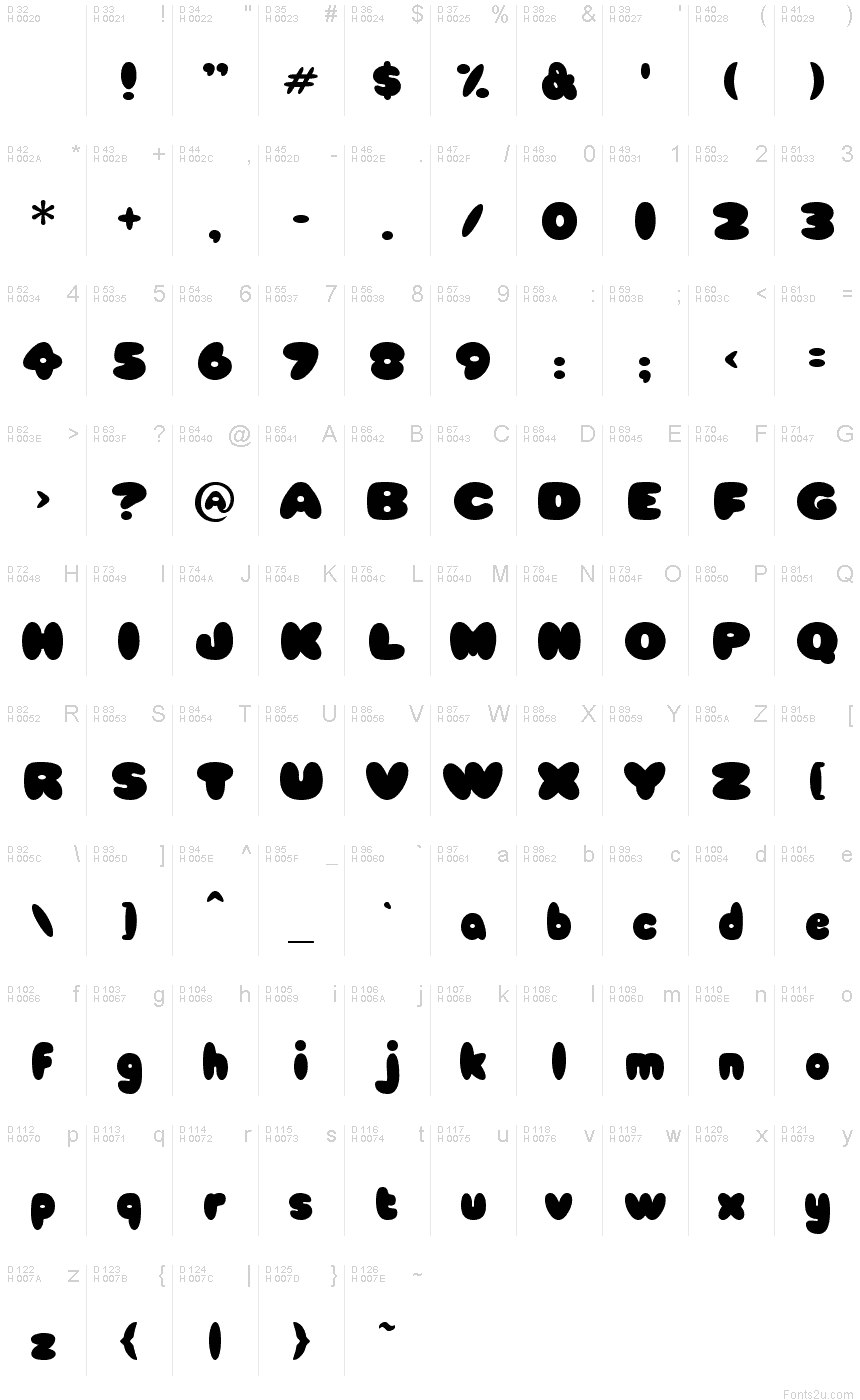
Babycakes
Babycakes font is a free cartoon display typeface with big, pillowy letters that look almost squished from a hug. The bold, rounded shapes and tight spacing give it a bouncy, sugary energy, like frosting piped a little too generously across a sign. Its solid black forms stay readable even at small sizes, but Babycakes really comes alive when you scale it up and let those bubbly curves breathe.
Using Babycakes, you can add instant playfulness to kids’ book covers, birthday invitations, toy packaging, bakery branding, YouTube thumbnails, or cheerful social media posts. This free font shines when you want friendly, approachable headlines that feel soft and hand-shaped rather than mechanical. Pair its chunky, cartoon style with a simple geometric sans-serif for body copy to keep layouts fun but still easy to read.